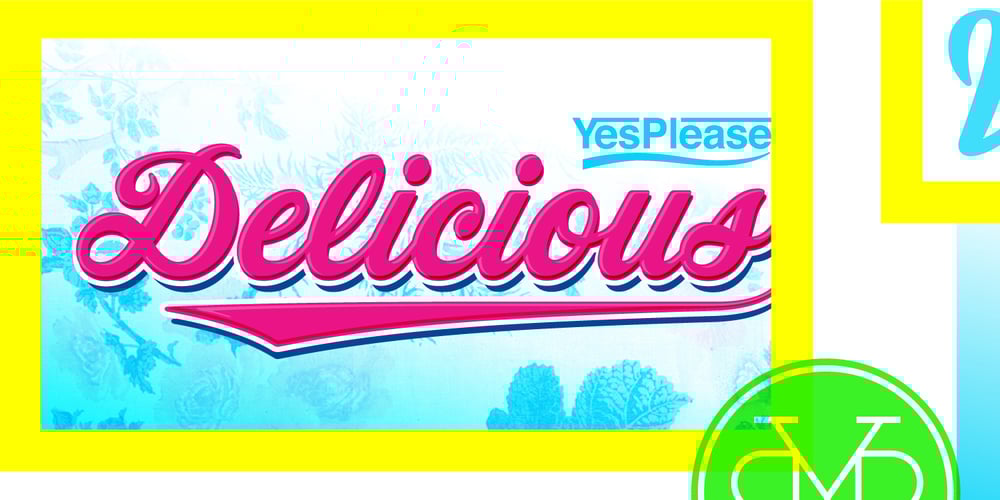
Delicious Pro Font Family was designed by Lee Schulz and published by Yes Please. Delicious Pro contains 1 styles and family package options. Delicious Pro from Yes Please is a bold, contemporary take on the classic Americana script. Inspired by the vibrant history of early 20th Century American packaging vernaculars, Delicious Pro delivers unique flavor packed with gestural personality perfect for headlines, packaging and more! Delicious Pro features conventional ligatures, a standard set of accents and symbols, and a full set of extended custom styling ligatures to provide a versatile end-user experience. Delicious Pro has played hard for Nike Women’s Training, Nike Sportswear, IFC and more. Delicious Pro is designed by Lee Schulz.